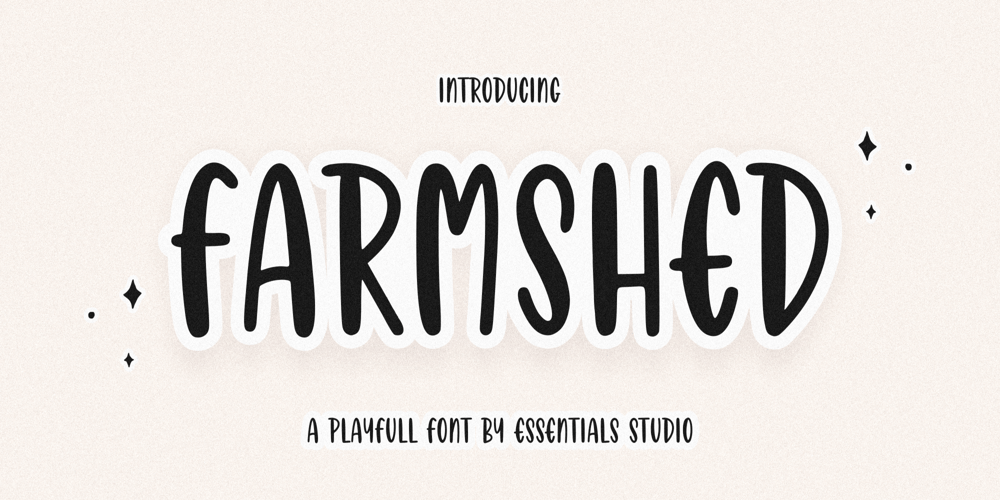
Farmshed Font Family was designed by Annas Rifky Anhar and published by Essentials Studio. Farmshed contains 1 styles and family package options. ntroducing by Essentials StudioProudly Present, FARMSHED Is a A Handwriting Playfull Fonts FARMSHED is perfect for product packaging, branding project, megazine, social media, wedding, or just used to express words above the background.Enjoy the font, feel free to comment or feedback, send me PM or email.